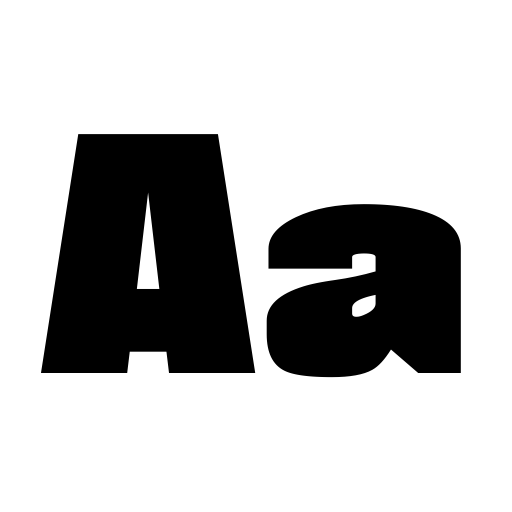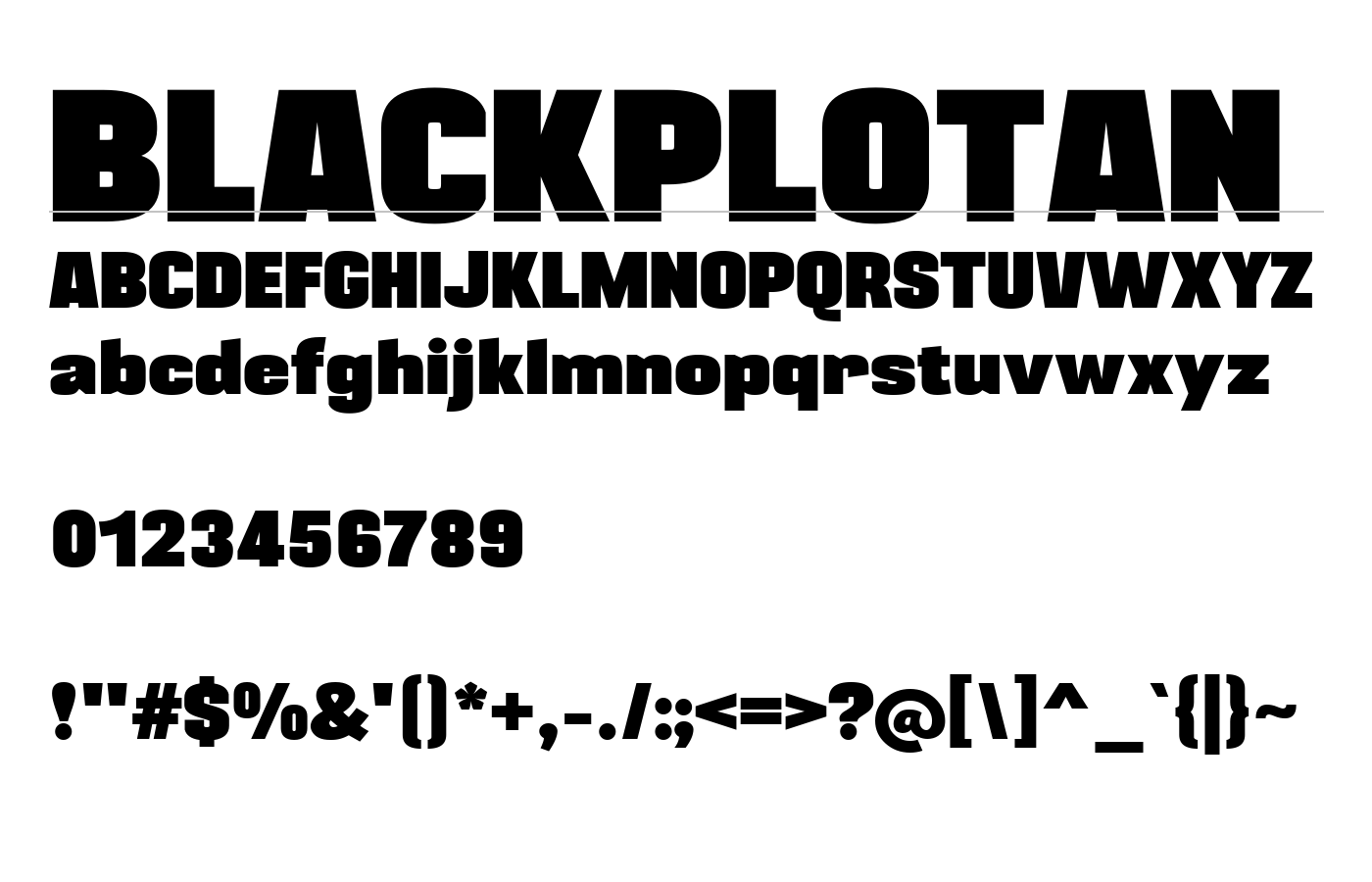
BLACKPLOTAN is a bold, condensed sans serif font with a strong, impactful presence. Its high stroke weight and tight spacing give it a powerful and modern feel, making it ideal for headlines, logos, and branding that demand attention. This font’s clean, straightforward shapes convey confidence and strength, perfect for dynamic, contemporary designs.
About BLACKPLOTAN Font